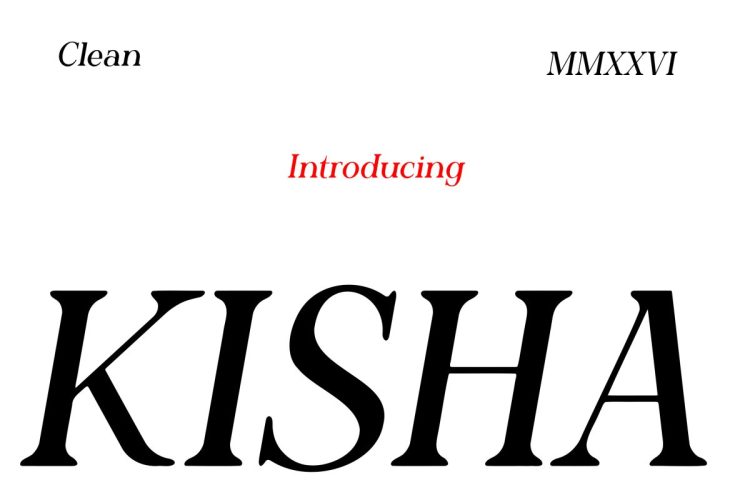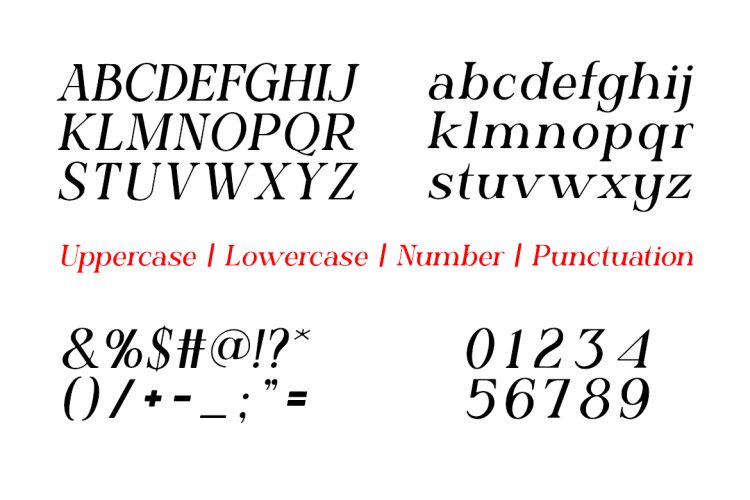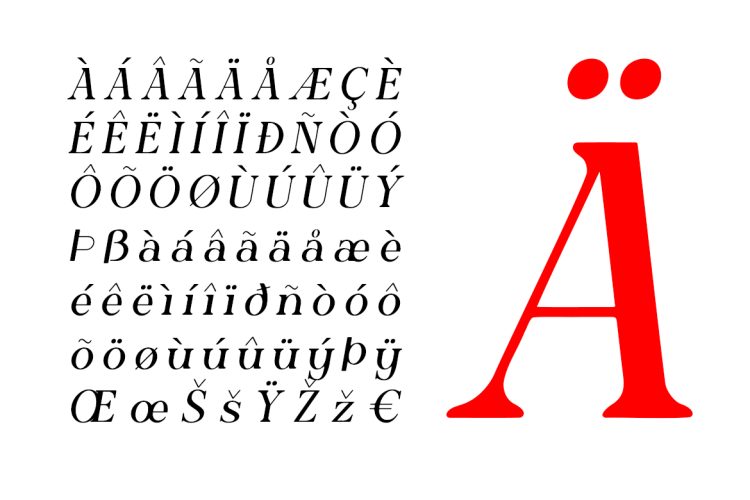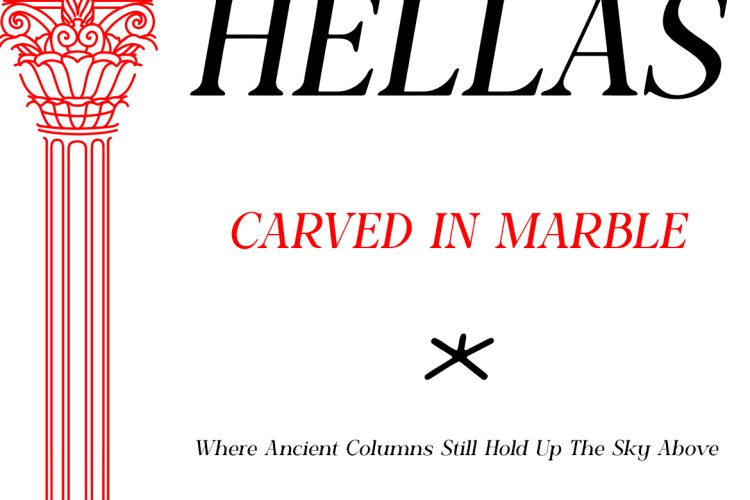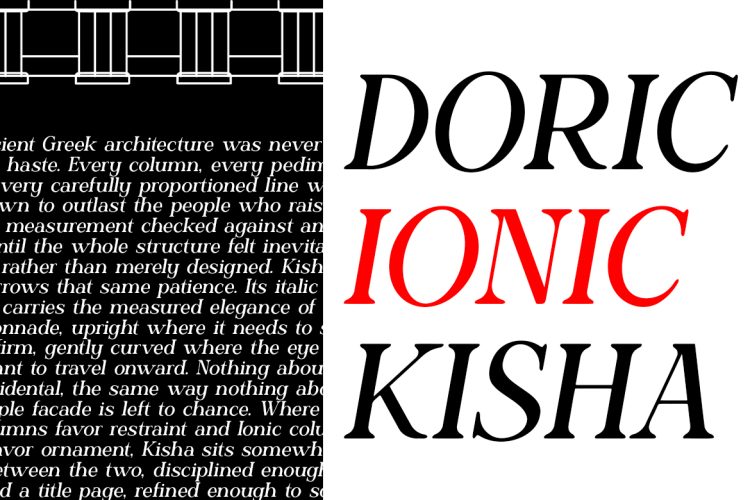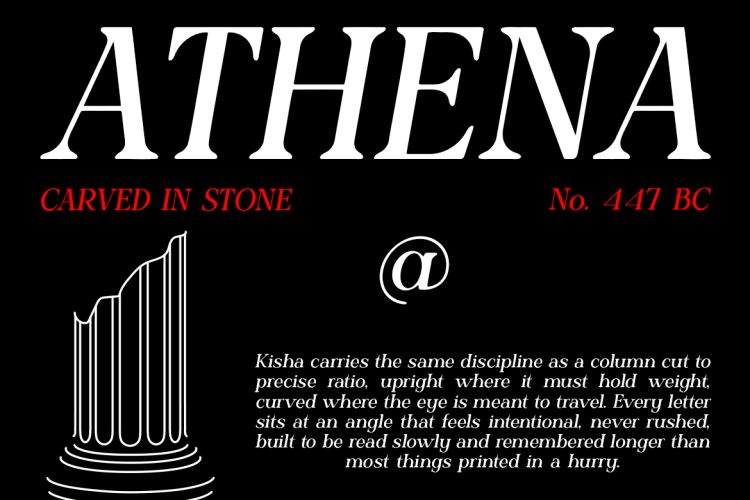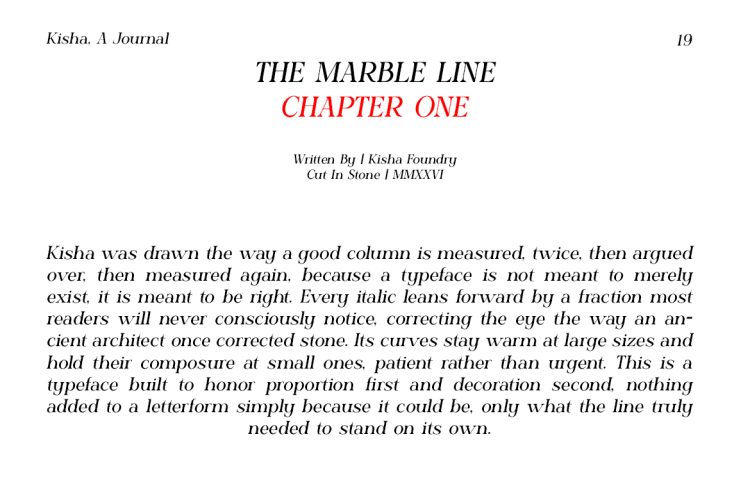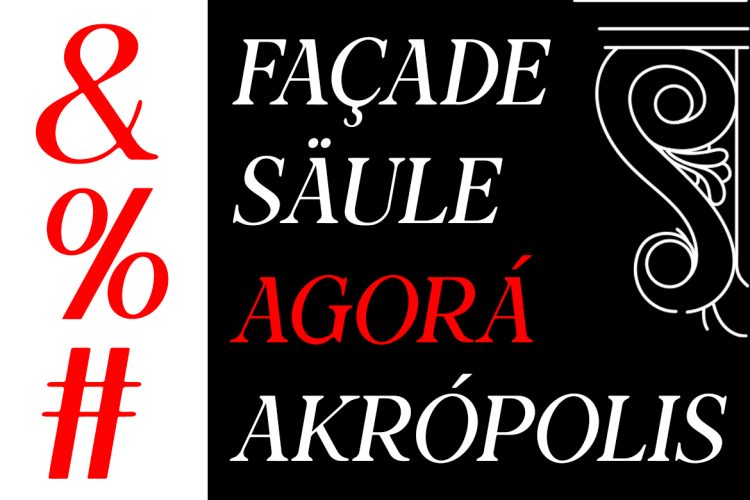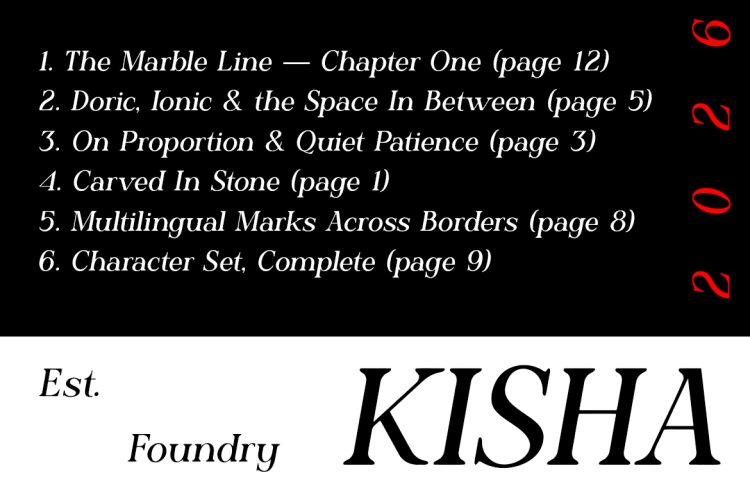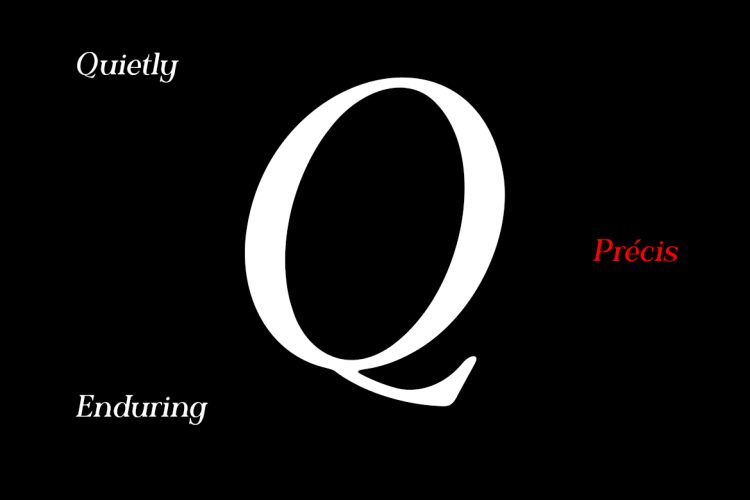
Modern Font KISHA โ Marble & Ink
Modern Font KISHA carries itself like an ancient column still standing tall. To start with, its high-contrast serifs and refined curves borrow straight from classical stone inscriptions. As a result, every letter feels sculptural, almost architectural. Meanwhile, the sharp thin-thick stroke contrast adds a dramatic editorial touch. This makes it equally at home on a marble faรงade or a modern magazine cover. Additionally, KISHA supports 67 languages with an extended character set. It even includes elegant accented letters and refined punctuation. Therefore, it bridges ancient elegance with global usability. In short, KISHA doesn’t just look classic โ it performs beautifully too. It shines across headlines, logos, and long-form editorial layouts alike.
Above all, this font suits luxury branding and architectural design studios. Furthermore, it works well for museum or heritage projects and high-fashion editorials. It also fits book covers and wedding invitations perfectly. In fact, it’s ideal for any design chasing timeless, sophisticated style.
Who Should Grab This
In particular, graphic designers, branding agencies, and publishers will find KISHA endlessly versatile. Likewise, art directors and creators building history-inspired identities will love it. Similarly, anyone crafting premium packaging or editorial spreads will appreciate its refined charm.